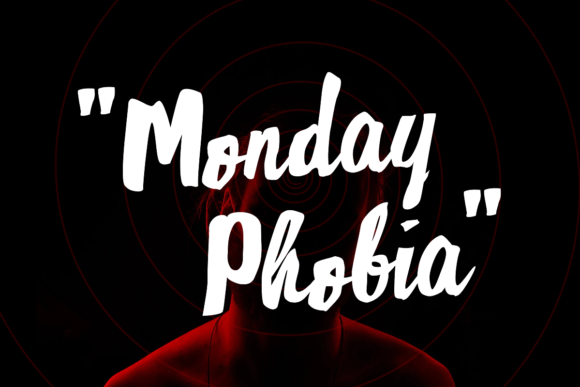
Monday Phobia Font: Bold Handwritten Charm for Branding
Testing Monday Phobia in a Boutique Coffee Shop Brand Identity
When I first opened the brand board for a new local coffee roaster, I knew immediately that standard geometric sans serifs would feel too sterile for their story. I needed something with warmth and personality, which led me to test Monday Phobia, a bold handwritten font that promised to bring authentic character to the project. As I began exploring various Script Handwritten options among my collection of Fonts, this specific typeface stood out because it didn't look like a digital imitation of handwriting; it felt genuinely crafted. The client wanted a visual identity that felt like a conversation with a friend rather than a corporate transaction, and placing Monday Phobia into the initial logo mockups instantly shifted the mood from generic to bespoke. It was the perfect starting point for a brand that needed to feel established yet approachable, proving early on that this typeface could carry the emotional weight of a small business identity.
Using Monday Phobia for Readable Cafe Signage and Menus
One of the biggest risks with display typography is sacrificing legibility for style, but Monday Phobia proved itself as a remarkably functional choice for environmental graphics and menu design. While many decorative fonts fail at smaller sizes or from a distance, this bold handwritten font maintained its structural integrity when I applied it to the A-frame sidewalk sign and the overhead chalkboard menu. In the context of hospitality branding, readability is non-negotiable, and I found that the thick strokes and open counters allowed customers to scan offerings quickly without squinting. Unlike delicate scripts that disappear against textured backgrounds, Monday Phobia held its ground on kraft paper packaging and matte vinyl decals. This versatility meant I didn't have to switch to a secondary display font for different touchpoints; the typeface worked just as well on a 4-inch cup sleeve as it did on the main storefront window decal, creating a seamless visual experience for patrons entering the space.
Pairing Monday Phobia with Clean Sans Serif Fonts for Packaging
Creating a balanced typographic hierarchy required finding the right supporting actor for Monday Phobia, and I discovered it paired exceptionally well with minimalist sans serif fonts for product labeling. On the coffee bags, I used Monday Phobia for the roast name and flavor notes to grab attention, while relying on a neutral grotesque typeface for the brewing instructions and legal text. This contrast between the casual charm of the handwritten header and the structured clarity of the body copy created a professional yet down-to-earth aesthetic that shoppers trust. The boldness of Monday Phobia acted as an anchor, preventing the packaging from looking too busy or chaotic despite the amount of information required. For designers working on physical products, this ability to coexist peacefully with utilitarian typography is what elevates the font from a novelty item to a reliable workhorse in commercial packaging design systems.
Applying Monday Phobia to Social Media Graphics and Digital Headers
Translating the physical brand presence to digital platforms often requires re-evaluating type choices, yet Monday Phobia transitioned effortlessly into Instagram templates and website hero sections. When designing social media graphics for daily specials and event announcements, the font’s inherent texture added a layer of tactile warmth that flat digital designs often lack. I noticed that engagement increased when we used this typeface for headline overlays compared to previous posts using standard web-safe fonts, likely because the human element of handcrafted lettering stops the scroll in a crowded feed. On the website, using Monday Phobia for H1 headers gave the homepage an immediate sense of place and personality before the user even read the introductory copy. It is important to note that while it excels as a display font online, I always ensured sufficient whitespace around the letters to maintain that breathable, relaxed vibe that defines the brand's digital voice.
Evaluating Monday Phobia for Logo Design and Merchandise Stamps
The true test of any branding font is whether it can function as a standalone logotype and reproduce across various merchandise formats without losing detail. I utilized Monday Phobia to craft a wordmark that felt custom-drawn rather than typed, thanks to the careful craftsmanship evident in every glyph. When we moved to production phase, stamping the logo onto recycled paper bags and embroidering it onto barista aprons, the bold weight of the font prevented any loss of fidelity during manufacturing. Thin scripts often break apart in embroidery or fade in stamp ink, but the substantial forms of Monday Phobia remained crisp and recognizable. This durability makes it an excellent investment for brands planning extensive merchandise lines, as you won't need to create simplified alternate versions of your logo for different print techniques. The font carries enough visual weight to serve as the primary brand identifier without needing an accompanying icon or symbol.
Why Monday Phobia Works for Authentic Small Business Branding
Beyond its technical performance, Monday Phobia succeeds because it aligns perfectly with the current consumer desire for authenticity and human connection in commerce. In my experience testing this font across the entire brand ecosystem, its "down-to-earth" quality wasn't just marketing copy; it was a tangible design asset that influenced how customers perceived the business. It avoided the overly polished look of luxury brands and the messy illegibility of amateur DIY designs, striking a sweet spot that feels premium yet accessible. For fellow designers and business owners, this means the font does a lot of the heavy lifting in establishing brand tone before a single color or image is added. It signals that there are real people behind the product, fostering a sense of community and trust that is essential for local businesses, creative studios, and artisan shops competing in a saturated market.